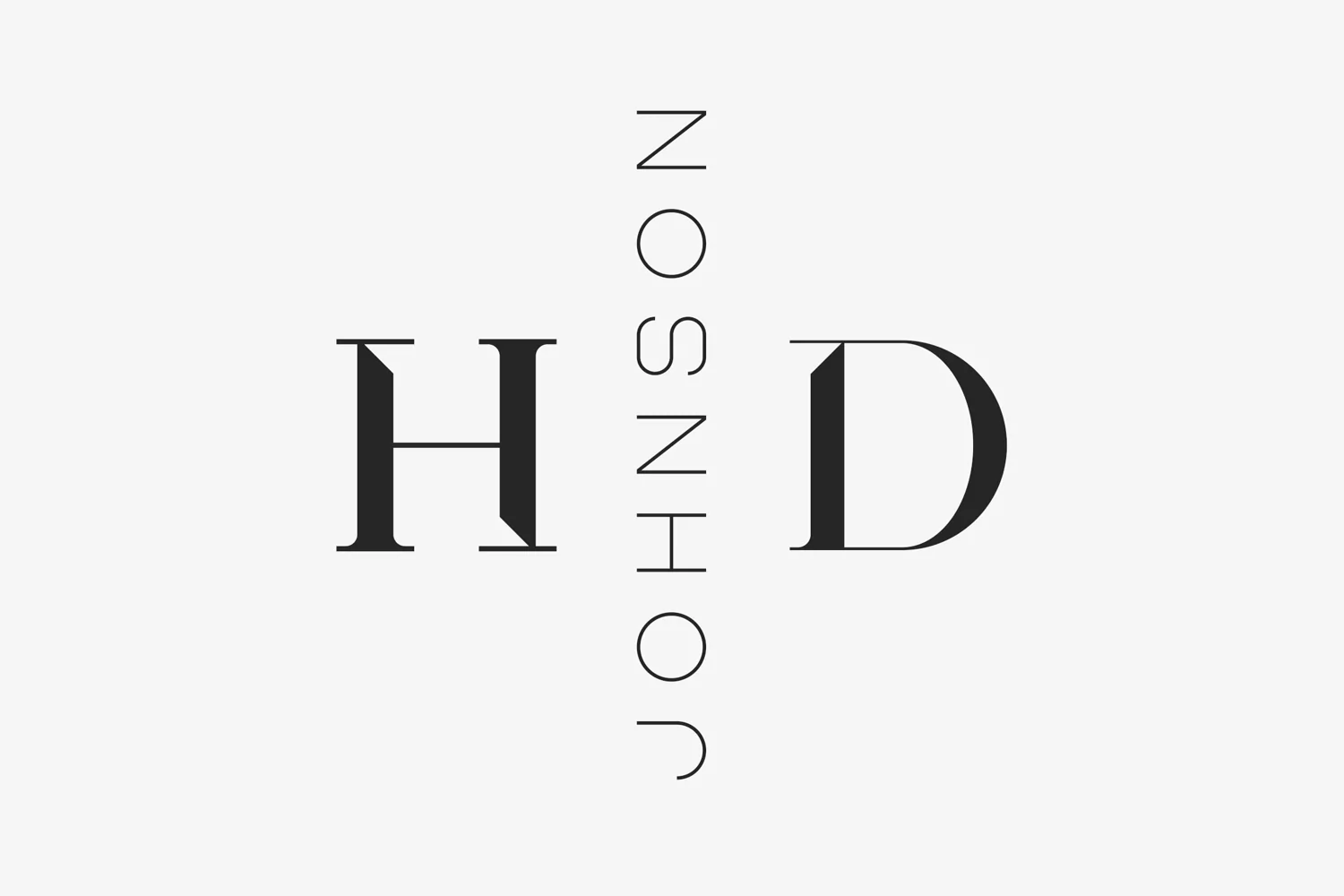
Modern Heritage Minimalist Sans Serif Font
Introducing Kavo Styled Serif
Kavo styled serif is clean, modern font with multilingual support.
It's a very versatile font that works great in large and small sizes.
Kavo styled serif is perfect for branding projects, home-ware designs, product packaging, magazine headers - or simply as a stylish text overlay to any background image.